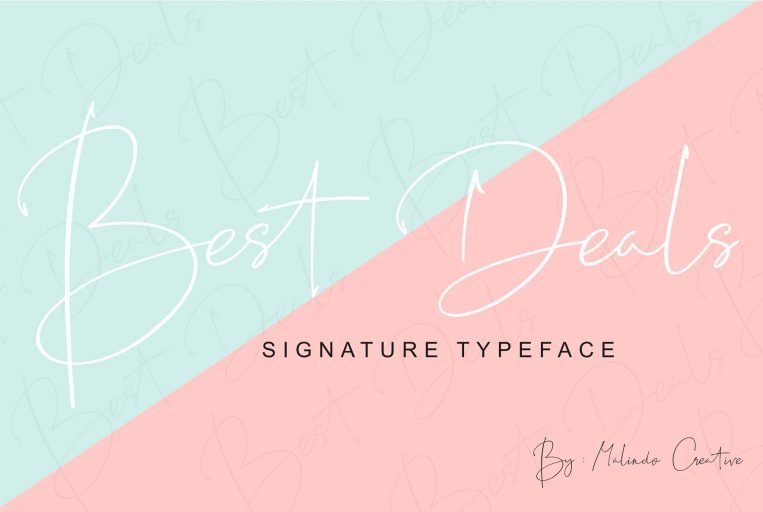
Best Deals Script Font
A new elegant signature typeface, beautiful and unique font scripts, it is a model of modern calligraphy typography, in combination with the style of calligraphy writing. Introducing Best Deals Font. Best Deals is a type of signature font, this font is the style of real ink pens,and this font is equipped with ligature, and supports language, which makes it suitable for, Logo,Posters,Businness cards,Merchandise,Wedding invitations,magazine,book,Greeting cards,Banners,Blogs,Clothing,Water-based paint designs,Prints,Quotes,clothes, And more!